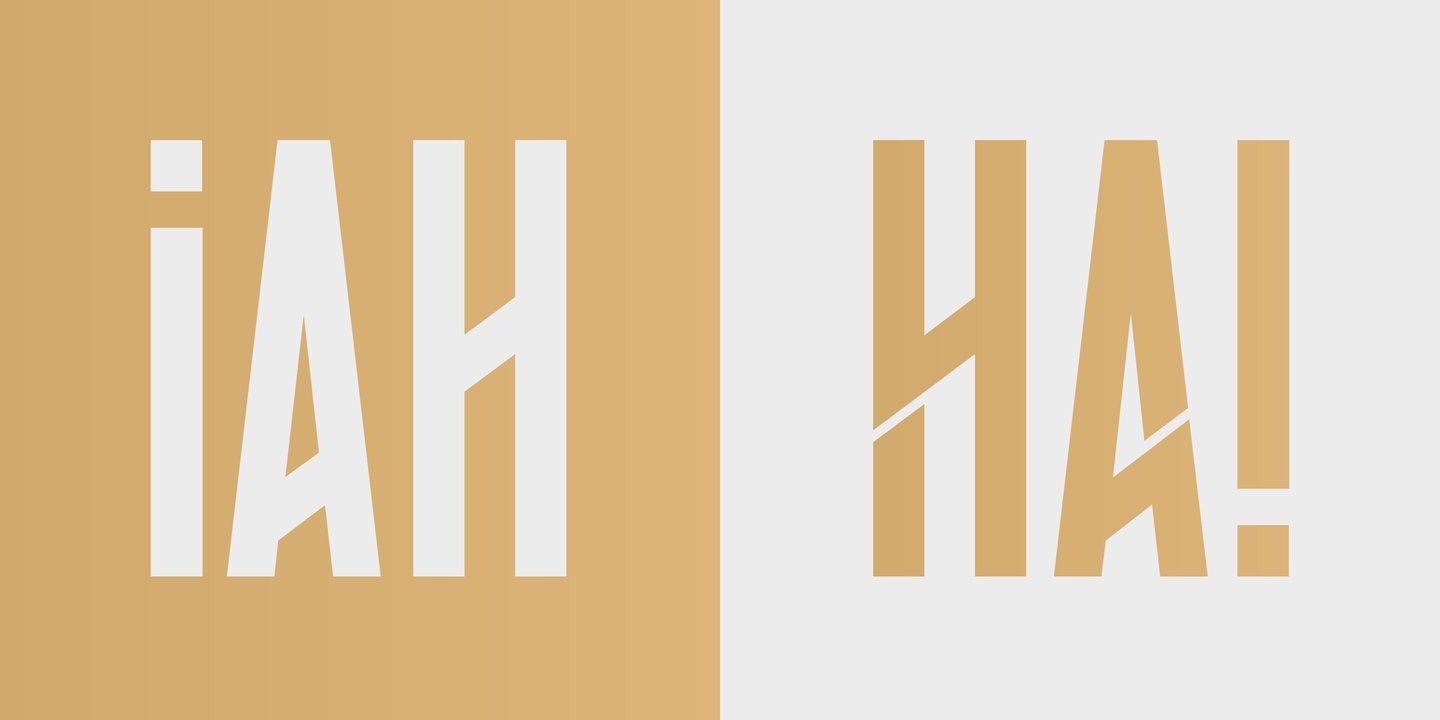
BIG is an elegant condensed display font created for strong and impactful headlines. It comes from a series of hand printed specimens taken from wood type found in Andrew Howard’s Studio in Porto (Portugal). A wooden type that reassembles the industrial victorian style which has now been expanded to 20 cuts, ranging from ExtraLight to Bold, with Italics and a stencil version, covering all your needs for a striking visual effect just with plain type with distinctive features and personality, standing out from the crowded world of display sans serif. The font was engineered with essential OpenType features, that allows the user to compose the headlines in two different heights, with case-sensitive punctuation, symbols and special ligatures such as “the”, “of” and “le”.